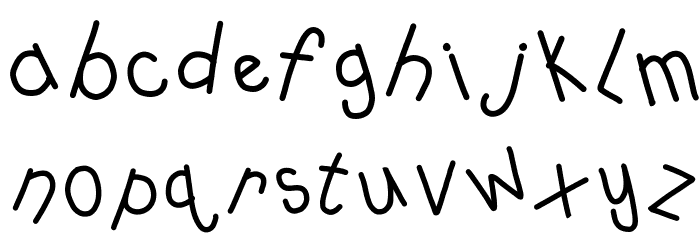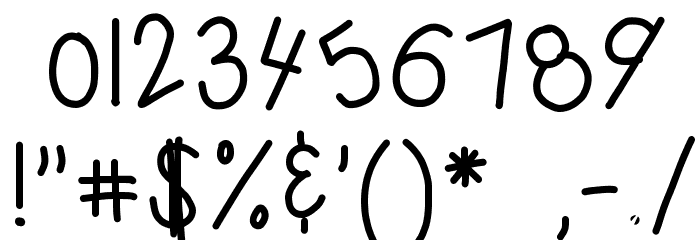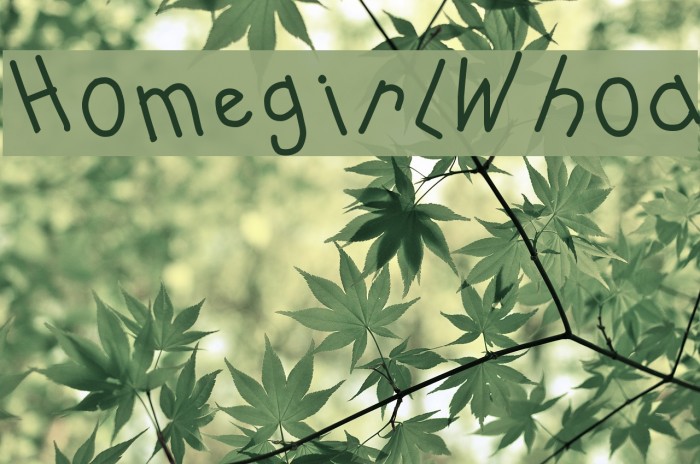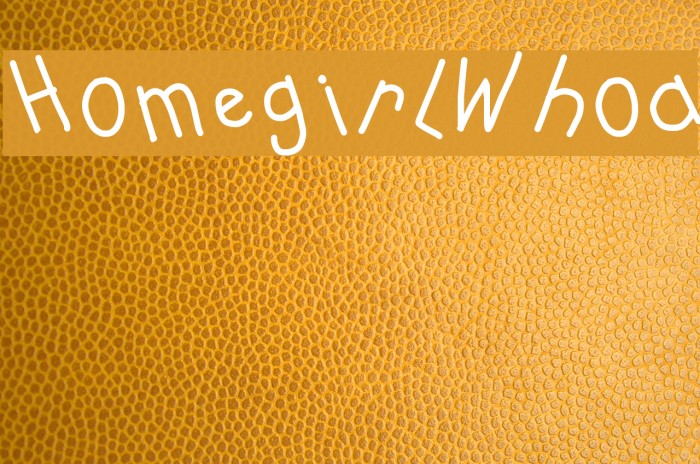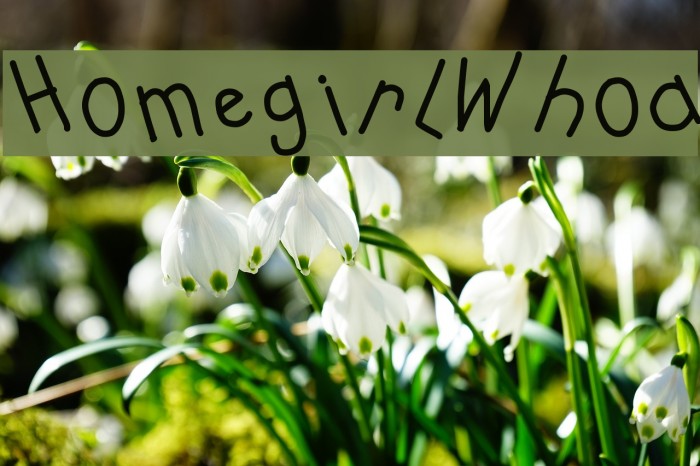
HomegirlWhoa Font
This playful and quirky font features a handwritten style with irregular, slightly tilted characters that give it a casual and friendly appearance. The letters are unevenly spaced, adding to the informal vibe. The strokes are consistent in width, providing a uniform look despite the whimsical design. The font includes both uppercase and lowercase letters, numerals, and a variety of special characters, making it versatile for different uses. Its unique style makes it stand out, perfect for projects that require a personal touch or a fun, approachable aesthetic.
A playful, handwritten font with a quirky and casual style.
- Proposed Projects: Ideal for greeting cards, children's books, playful branding, or social media graphics.
- Character Spacing: Wide
- Overall Style: Casual, Playful
- Use Case: Headlines, Informal text, Creative projects